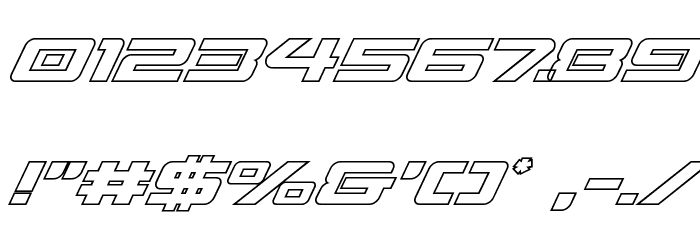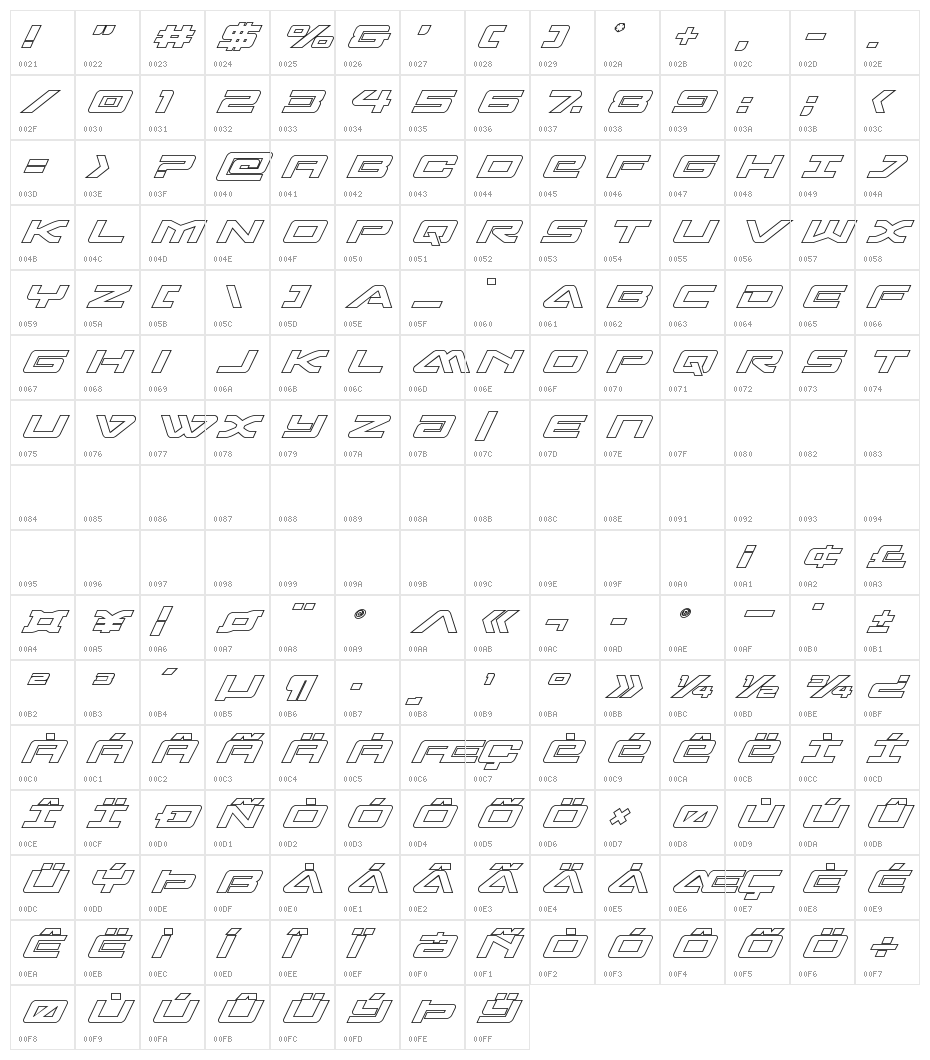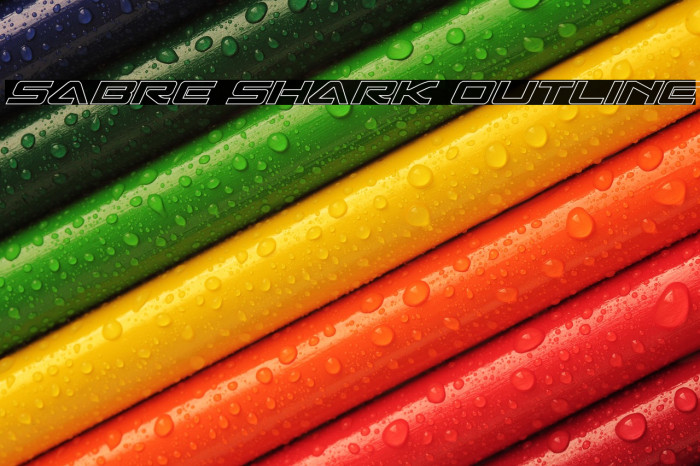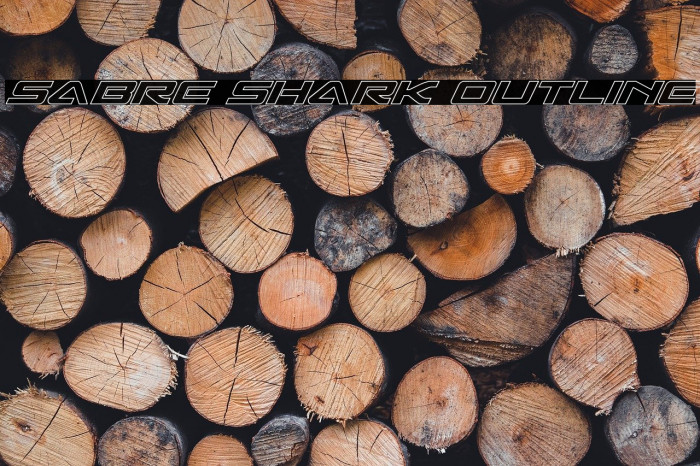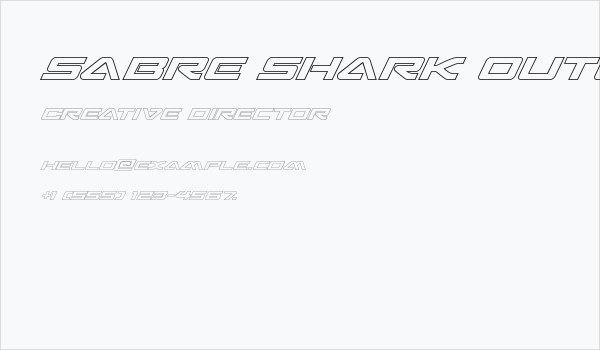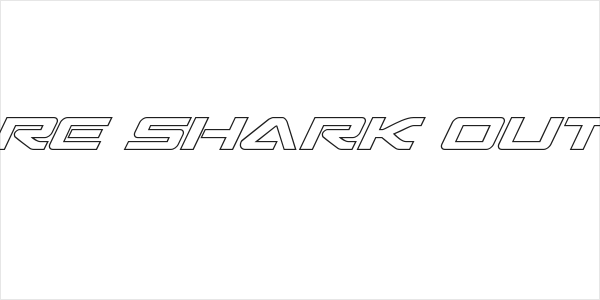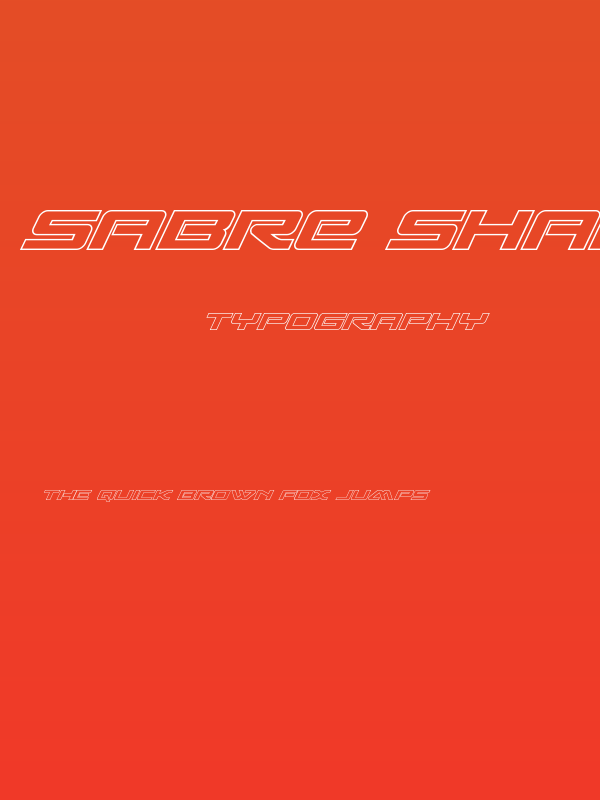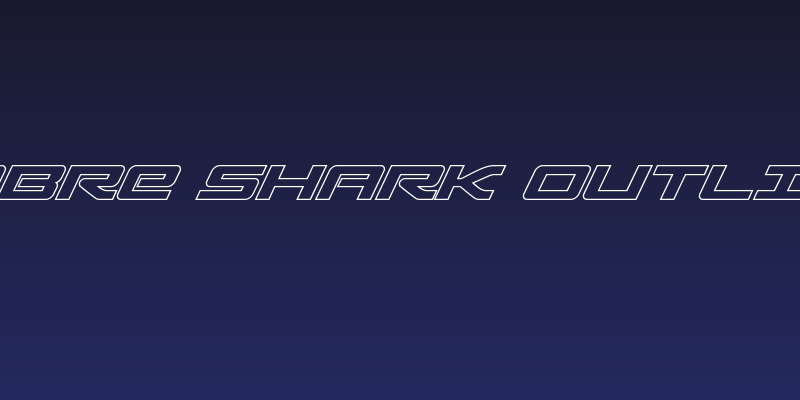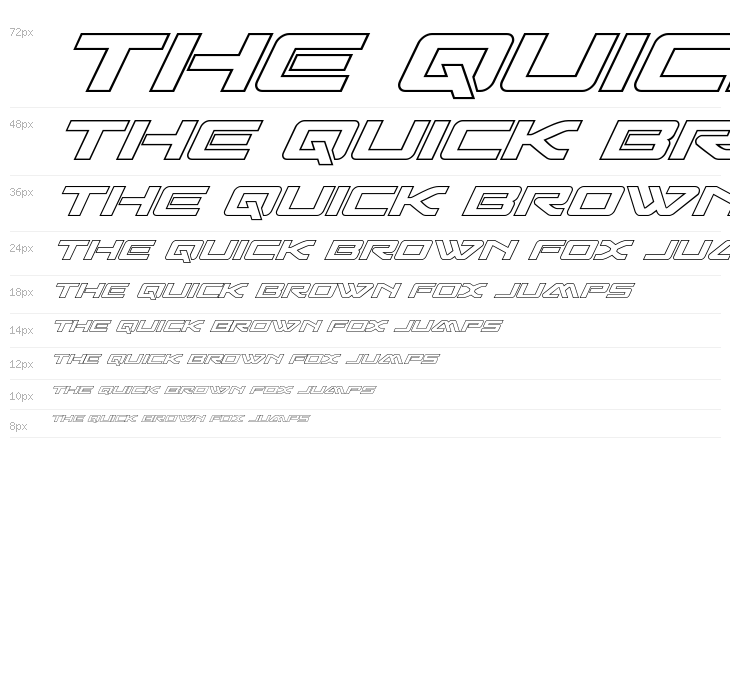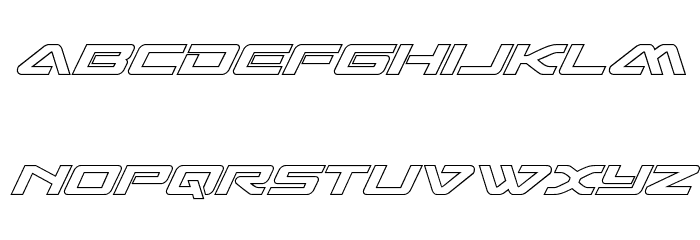
Sabre Shark Outline Font
Sabre Shark Outline Description
This font features a bold, outlined style with a futuristic and angular design. Each character is crafted with sharp edges and a geometric structure, giving it a dynamic and modern appearance. The outline effect adds a sense of depth and dimension, making it stand out in any design. The uppercase and lowercase letters maintain a consistent style, with the lowercase being slightly smaller but equally bold. Numbers and special characters follow the same design principles, ensuring uniformity across all glyphs. This font is ideal for projects that require a strong, impactful visual presence.
Proposed ProjectsIdeal for sci-fi themed designs, video game graphics, posters, and branding that requires a modern and bold aesthetic.